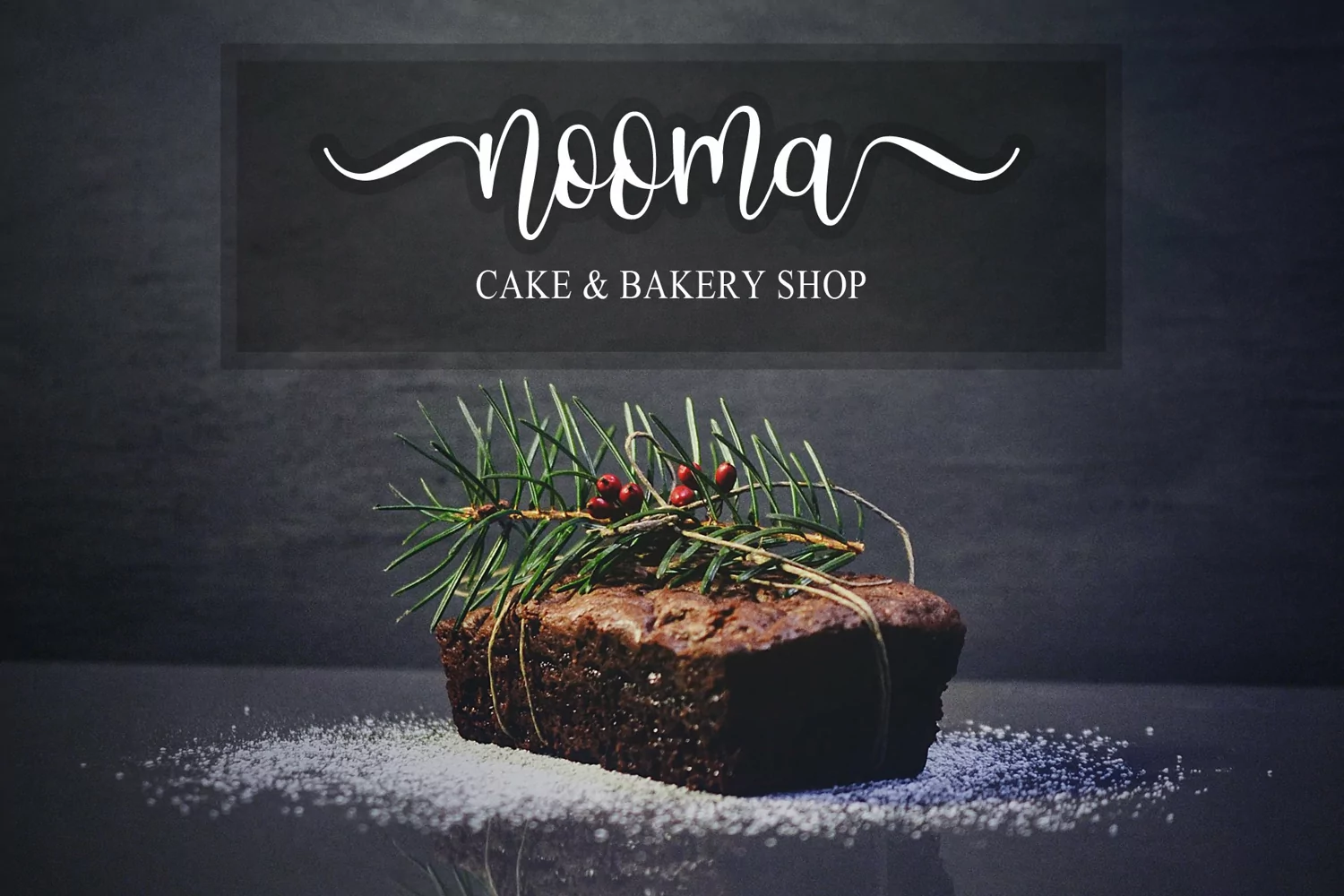
Introducing our latest product, Angelic, is a moder bouncy script font. Angelic is very beautiful, it is a calligraphy font made with a love for calligraphy art. The wealth of ligature features and various alternate makes this font so perfect to be included in every design project.
This font is great for many design projects such as product brand, quotes, clothes, business card, wedding invitation, signature, logos, lettering, etc.
There are many of sophisticated alternate characters.